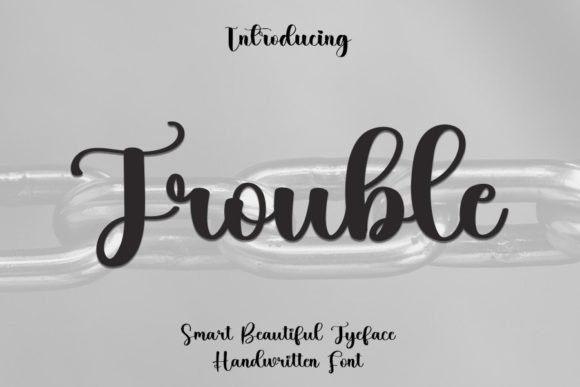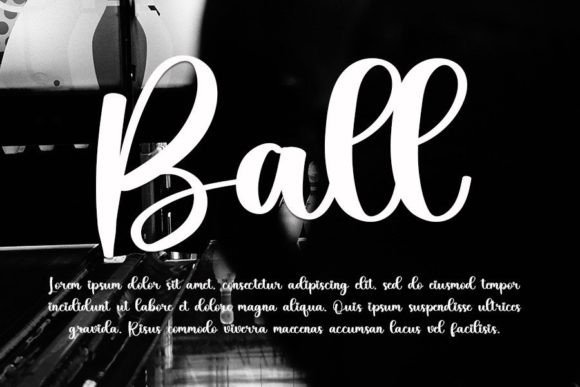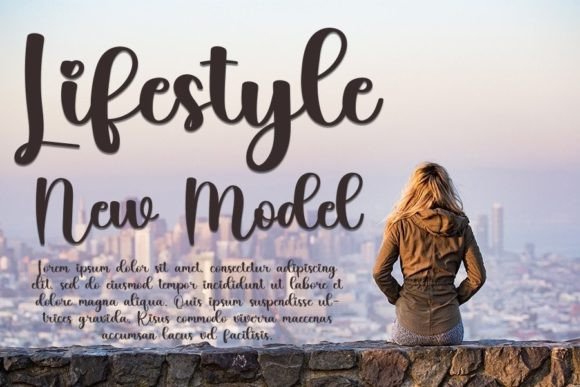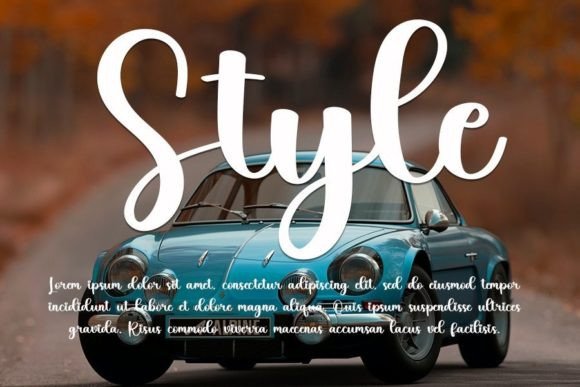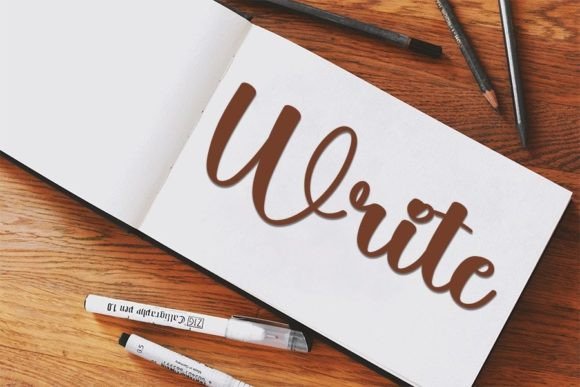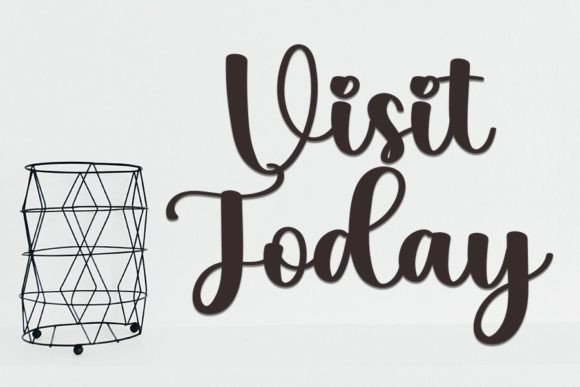
Trouble Font
About Trouble Font
**Trouble** is a font that exudes delicacy and authenticity, designed in a handwritten style that adds a touch of charm and elegance to various crafty projects. Its well-rounded and graceful letterforms make it a perfect choice for projects that require a genuine and personal touch. By incorporating **Trouble** into your designs, you can infuse them with an authentic and heartfelt aesthetic, ensuring they stand out with a delicate and crafty elegance.
**Delicate and Graceful Design**: **Trouble** features a delicate and graceful design that captures attention with its refined strokes and subtle details. Its gentle letterforms create a sense of delicacy and sophistication, making it ideal for projects that demand a touch of elegance and grace. The font’s delicate appearance adds a soft and refined atmosphere to the text, ensuring it looks tasteful and elegant.
**Well-Rounded Authenticity**: The authenticity of **Trouble** makes it well-suited for crafty projects that require genuine and handcrafted typography. Its handwritten style conveys a sense of warmth and sincerity, making it suitable for designs that aim to create a personal connection with the audience. Whether used in wedding invitations, birthday cards, or personal branding, the font adds a heartfelt and authentic touch to the content.
**Versatile Crafty Projects**: **Trouble** is versatile and adaptable to a variety of crafty projects. Its well-rounded design allows it to seamlessly integrate into different contexts, from elegant logos and branding to wedding stationery and elegant invitations. Its timeless appeal enhances the visual appeal of diverse crafty projects, adding a touch of sophistication and charm to the content.
**Elevating Elegance**: **Trouble** elevates elegance and adds a touch of sophistication to designs. Its delicate and well-rounded nature exudes a sense of refinement and class, making it perfect for projects that require an elegant and tasteful aesthetic. The font’s elegance creates a sense of timeless beauty, ensuring the designs exude sophistication and charm.
In summary, **Trouble** is more than just a font; it’s a representation of delicacy, authenticity, and elegance. Its delicate and well-rounded design, coupled with its versatility, makes it a valuable choice for a variety of crafty projects. By incorporating **Trouble** into your designs, you can create a genuine and elegant visual experience, ensuring your projects resonate with a delicate and heartfelt charm. Let **Trouble** be the authentic and graceful companion that adds a touch of sophistication to your crafty endeavors, making them truly elegant and memorable.